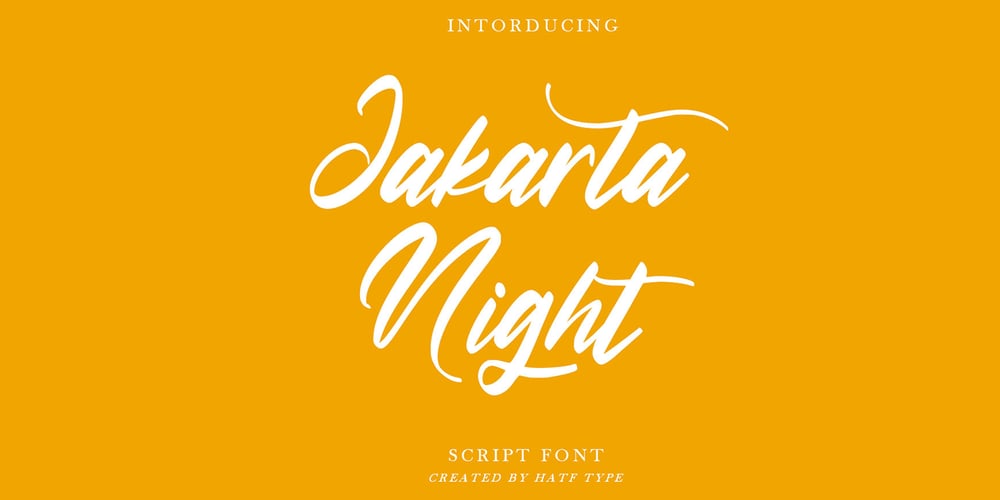
Jakarta Night Font Family was designed by Rendi Rochimah and published by Hatftype. Jakarta Night contains 1 styles and family package options. Jakarta Night is a relaxed and flowing handwritten script font. Incredibly versatile, this font fits a wide pool of designs, elevating them to the highest levels. Add this font to your favorite creative ideas and notice how it makes them come alive!Features:A-Z Character SetNumerals & Punctuations (OpenType Standard)Stylistic AlternatesMultilingualLigatures